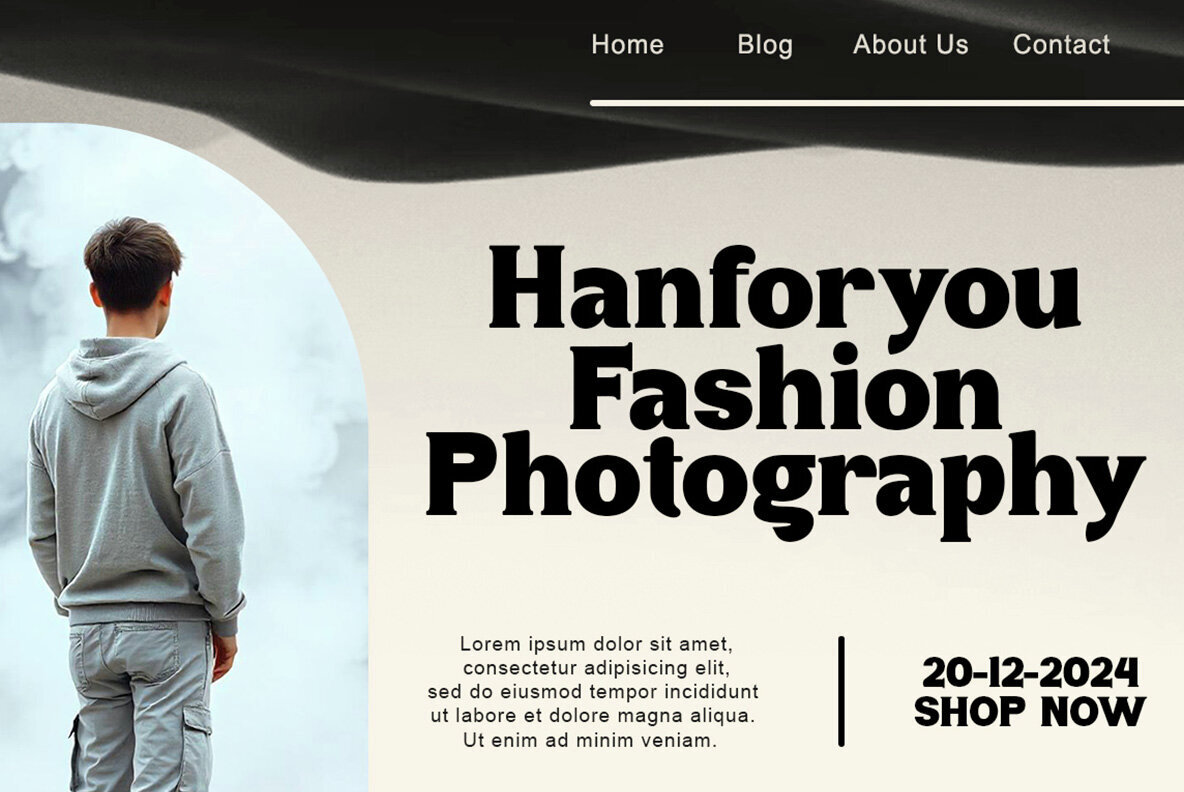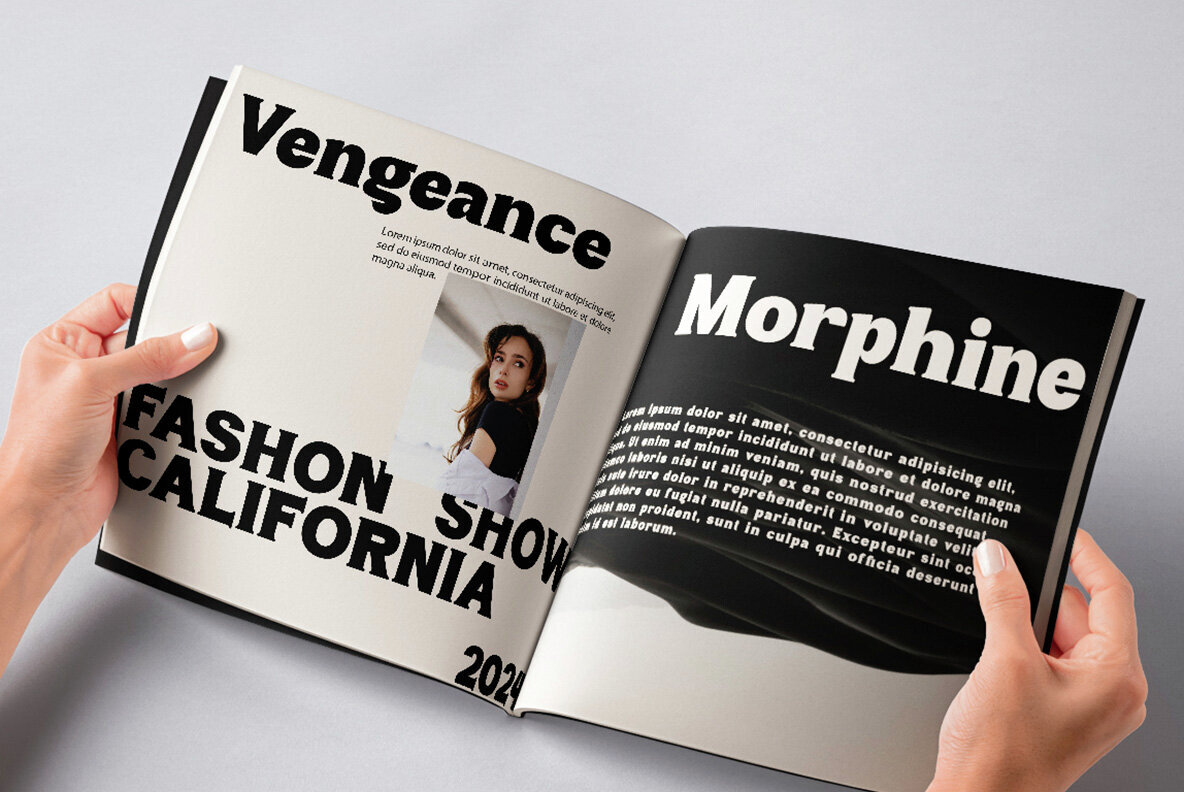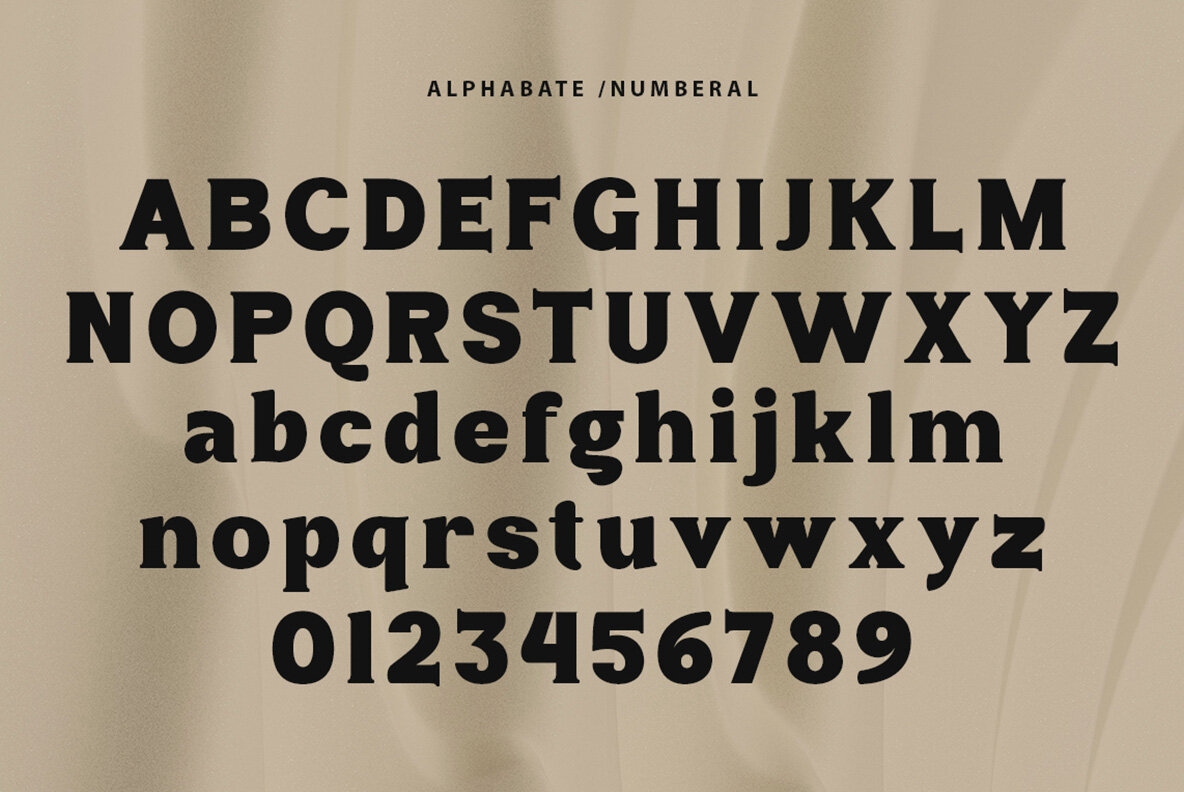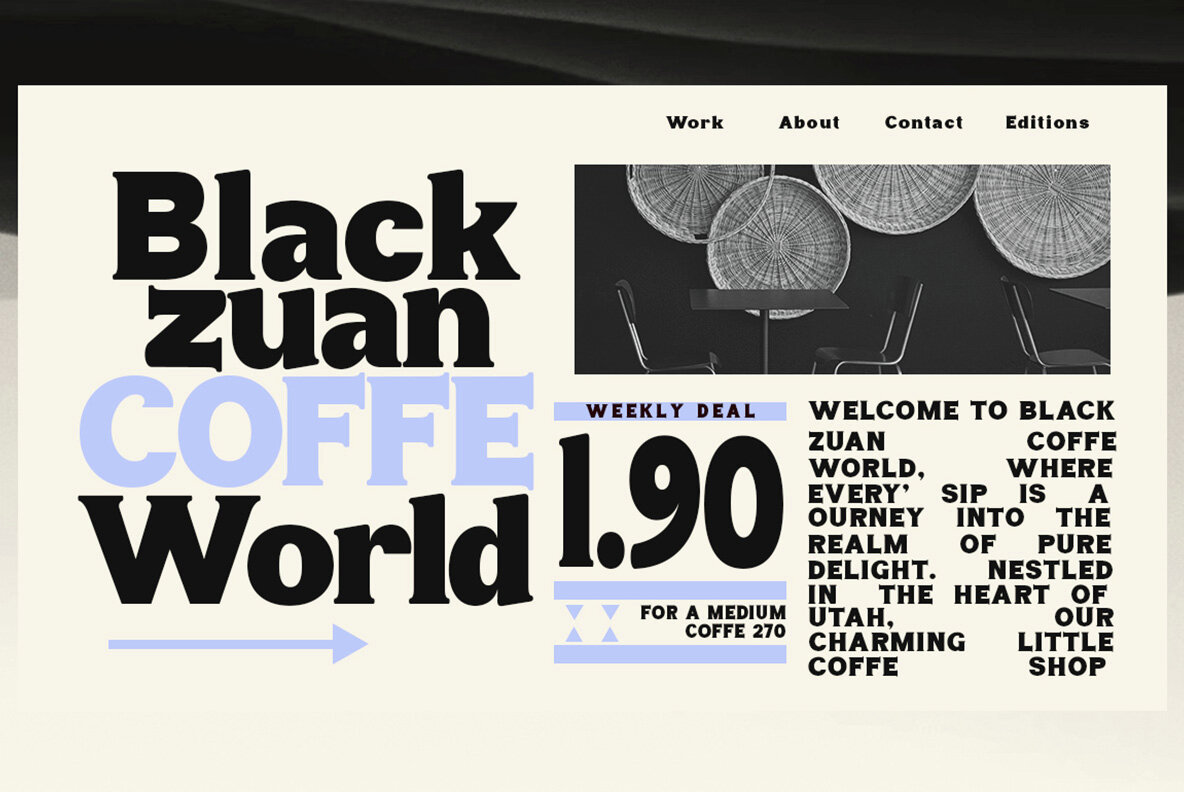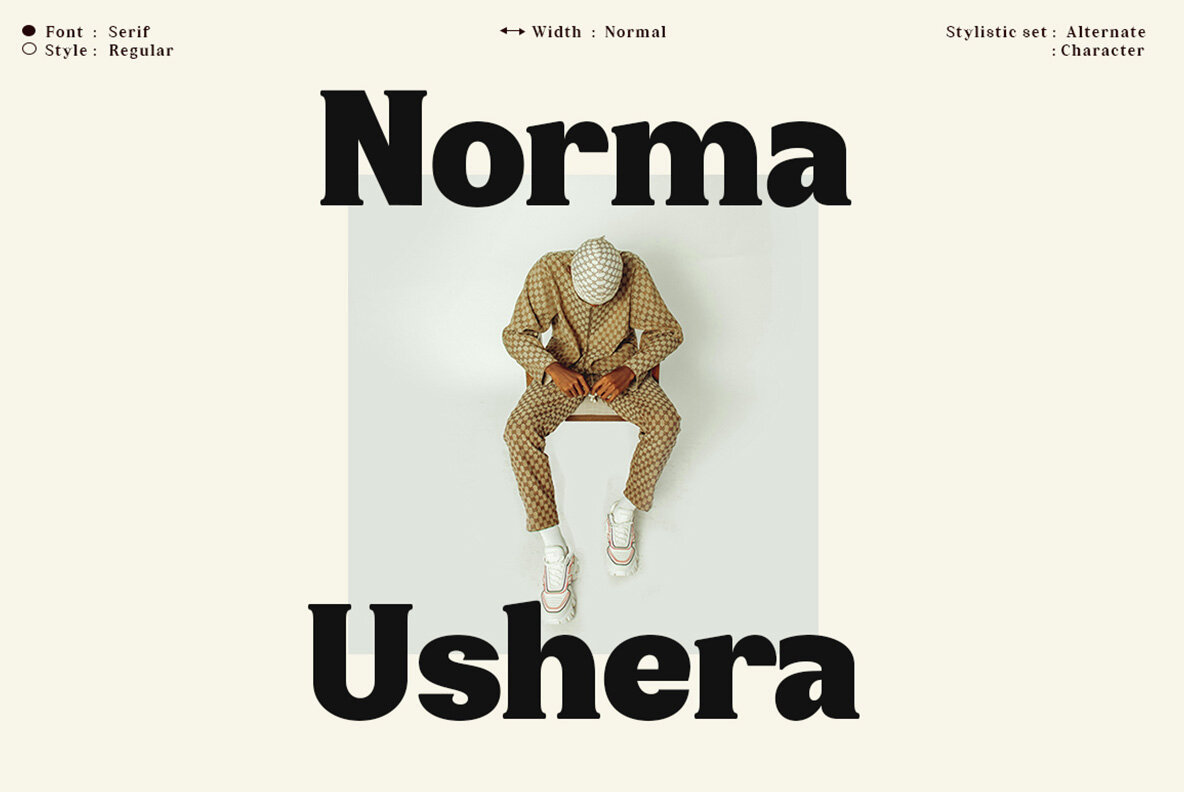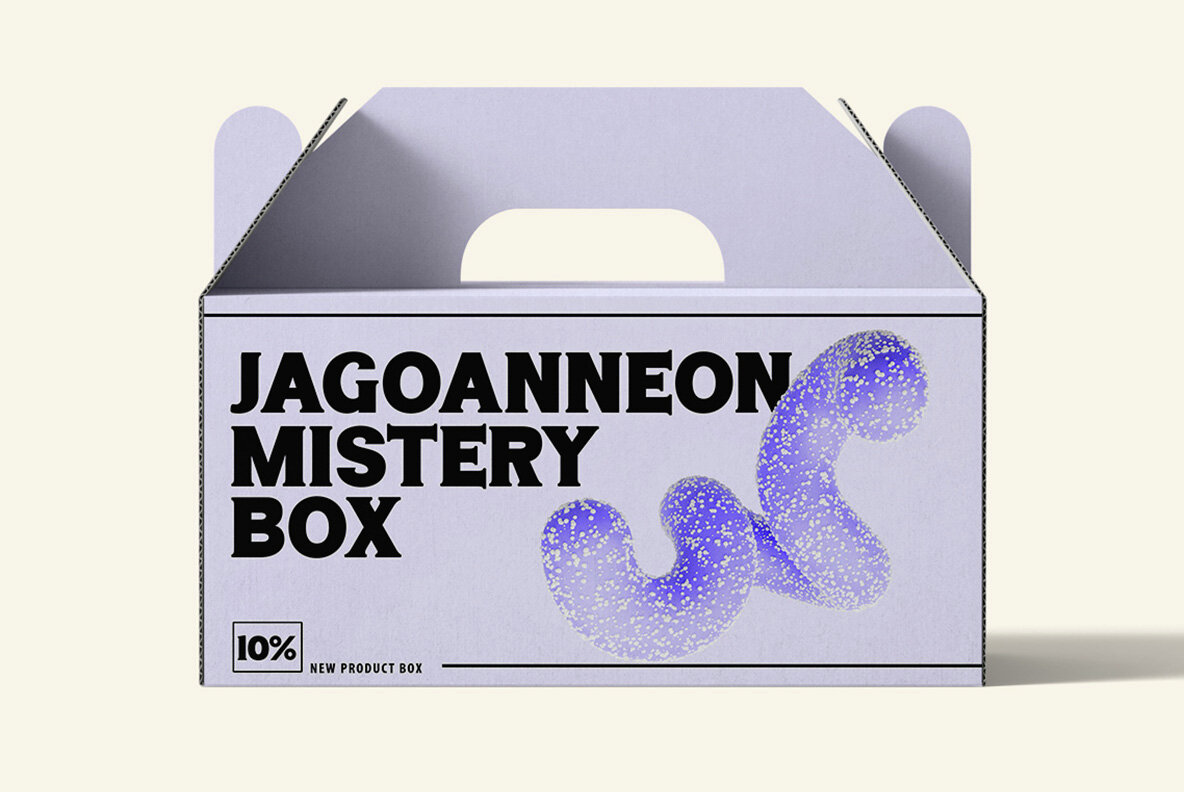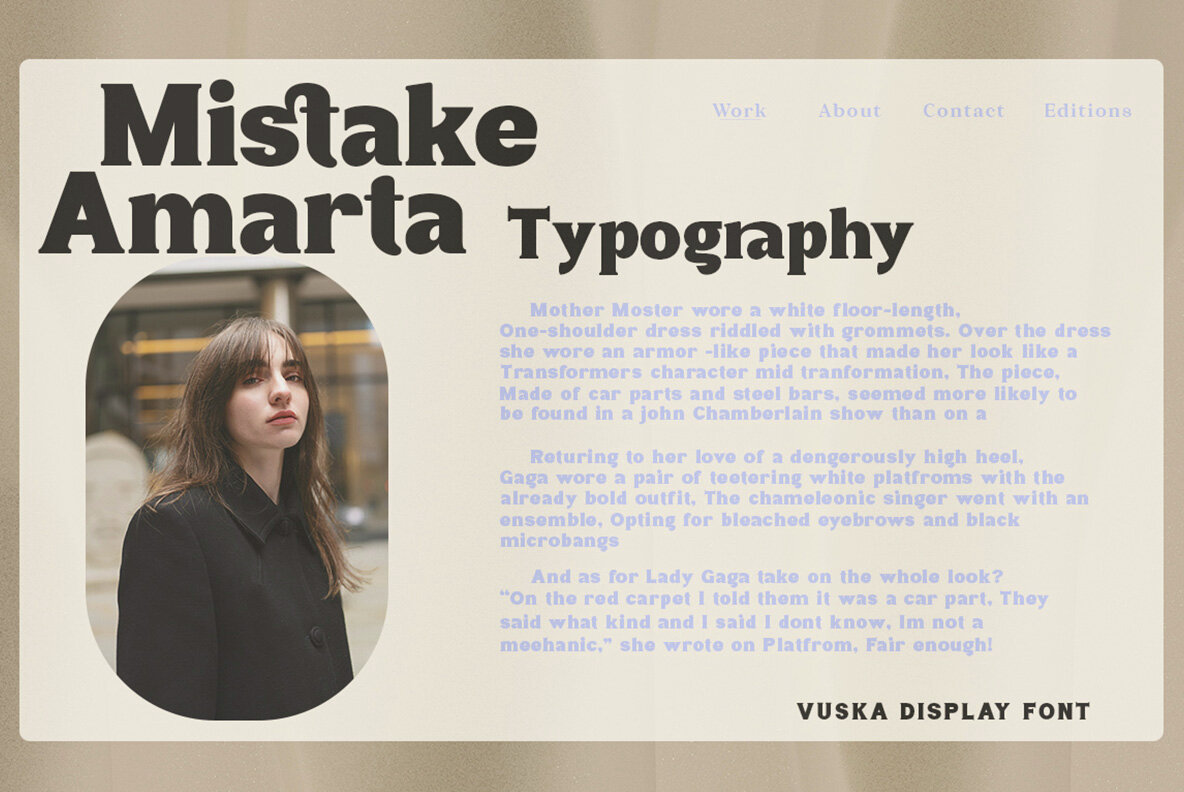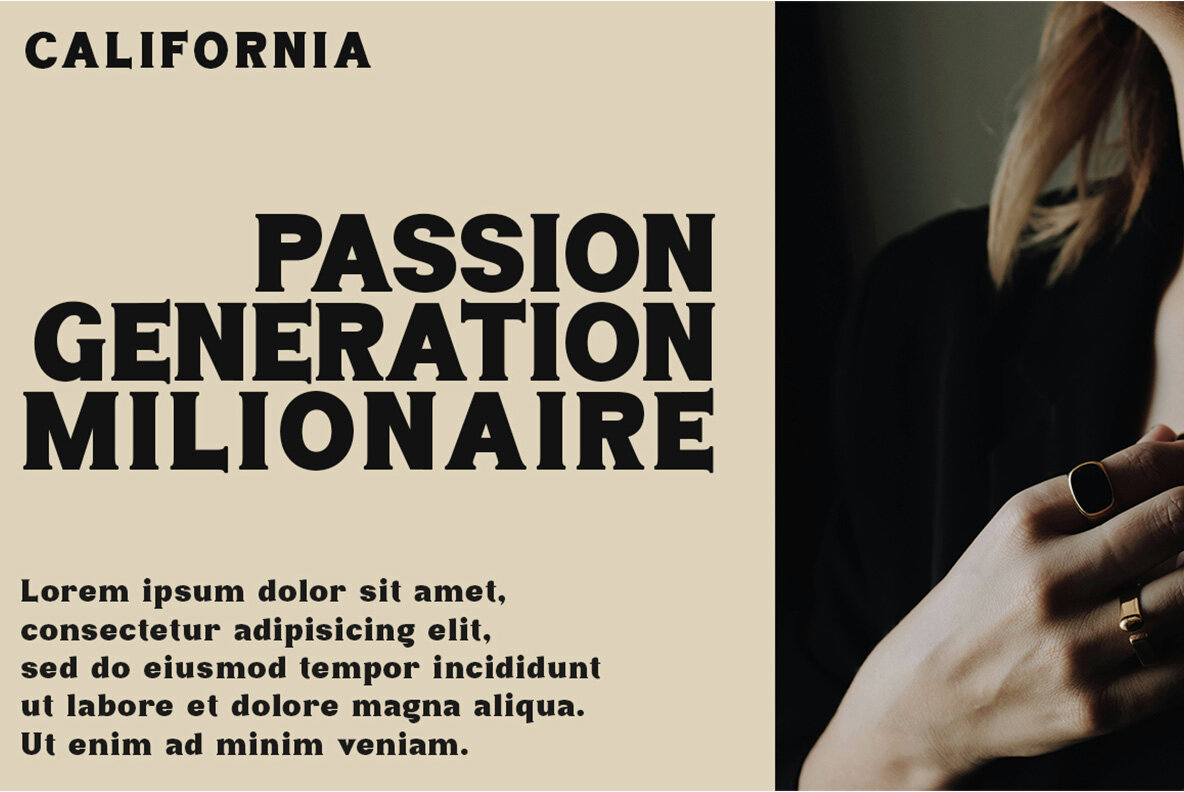
Vuska Display Font
Vuska Display is a sleek, modern font, perfect for elevating your designs with its elegant and clean lines. This typeface offers readability combined with an attractive character style, making it ideal for diverse design applications such as logos, posters, and professional branding. Its carefully crafted design elements seamlessly blend elegance and modernity, appealing to a global audience.